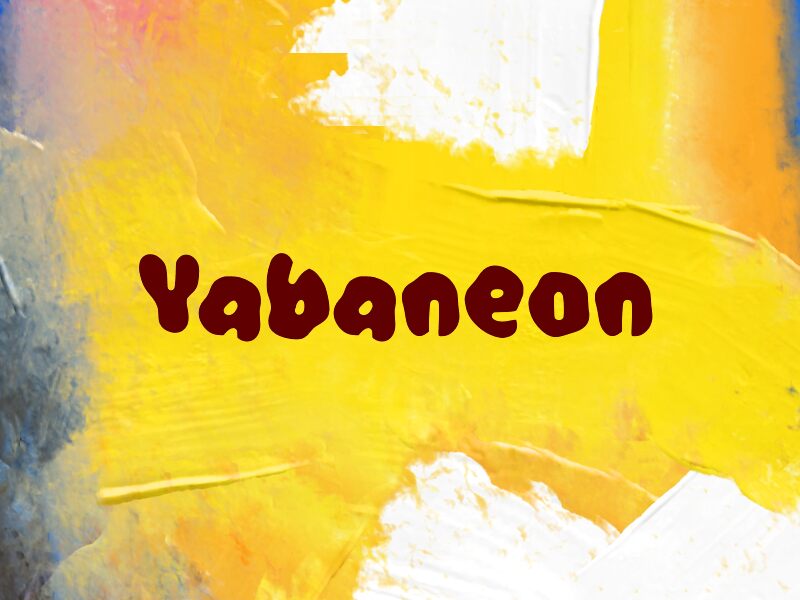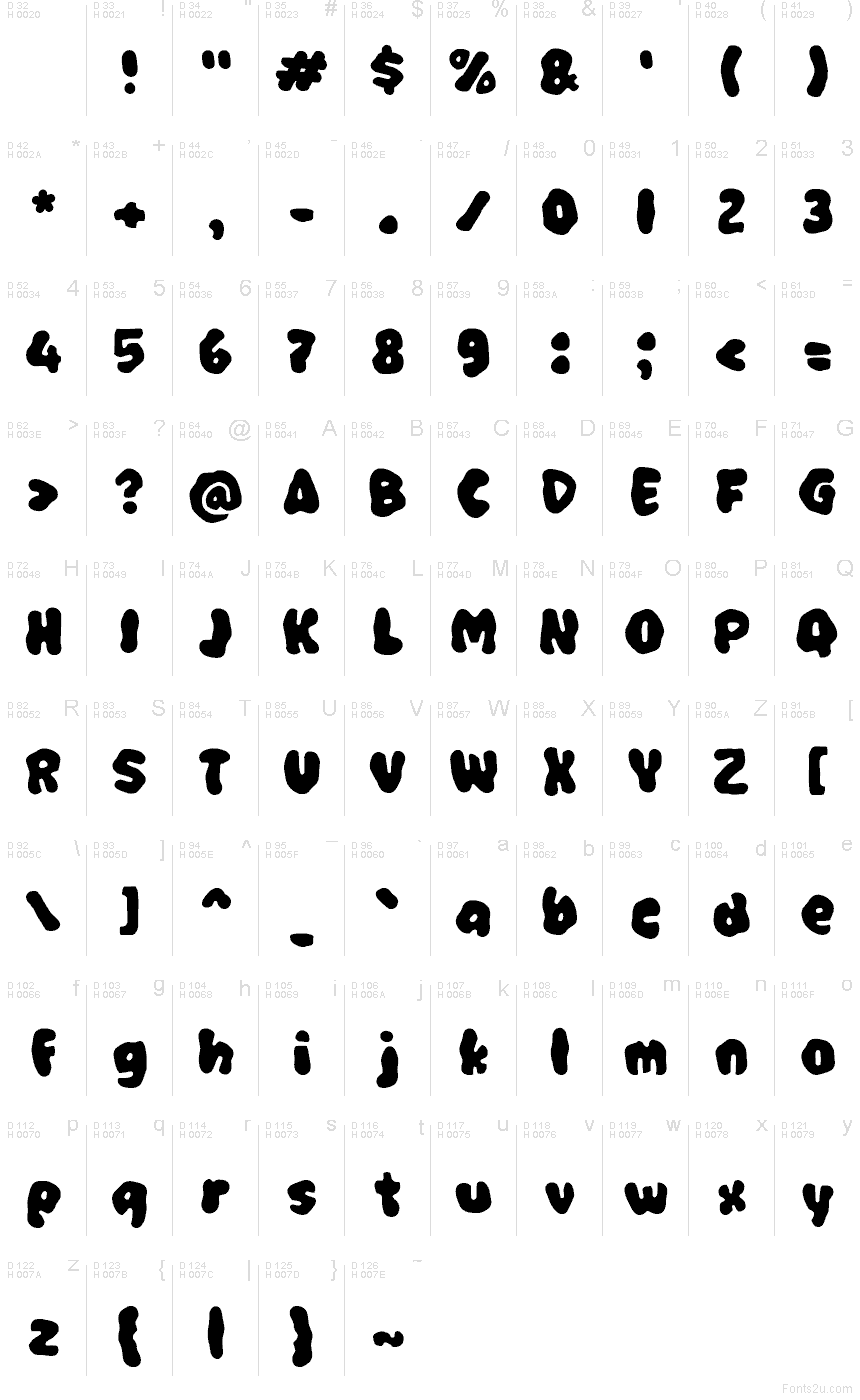
Yabaneon
Yabaneon font by wepfont.com is a free groovy display typeface that looks like it’s been poured onto the page in thick, inky blobs. Each letter swells and squishes into the next, with soft, rounded silhouettes that feel playful and just a bit trippy, like psychedelic bubble letters glowing on a club wall. There’s a hand-drawn looseness here that keeps things lively and impossible to ignore.
Using Yabaneon, your headlines instantly take on a gooey, neon-soaked personality that shines on party flyers, music or festival posters, album covers, gaming titles, streetwear branding, and bold social graphics. This free font thrives at large sizes where its swollen shapes can breathe; pair it with a simple, clean sans serif for body text to keep your layouts readable while Yabaneon does the loud, funky work up top.